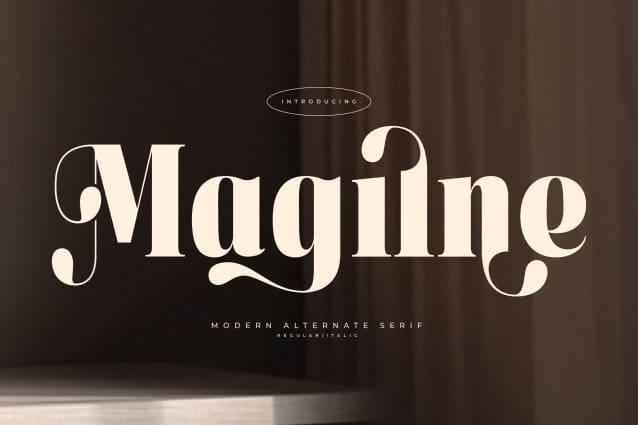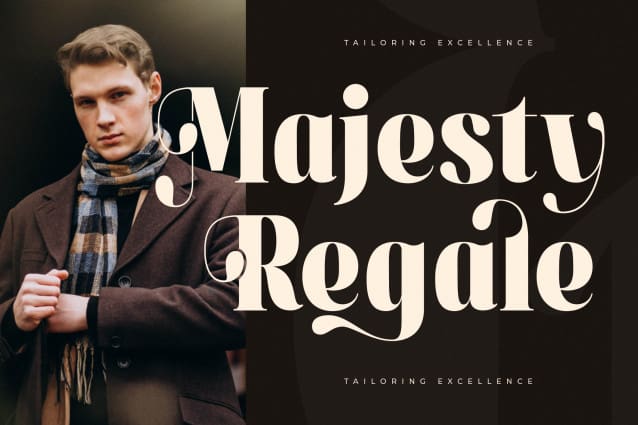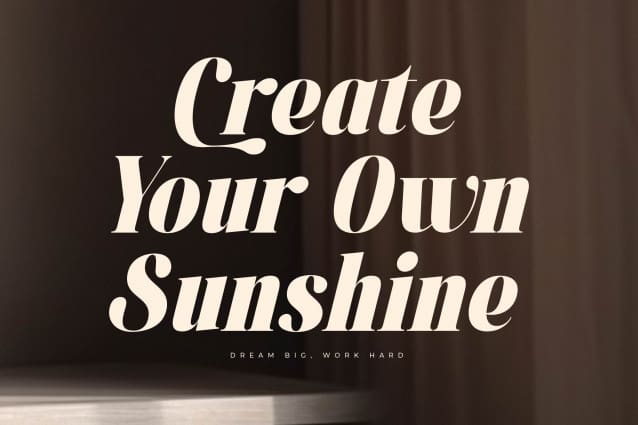
Magilne Font
Magilne Font – This serif font is stylish and sophisticated. It has a classic feel with thin strokes, sharp angles, and elegant curves. It is perfect for any project looking to add a touch of class. This font is PUA encoded which means you can access all glyphs and swashes effortlessly!